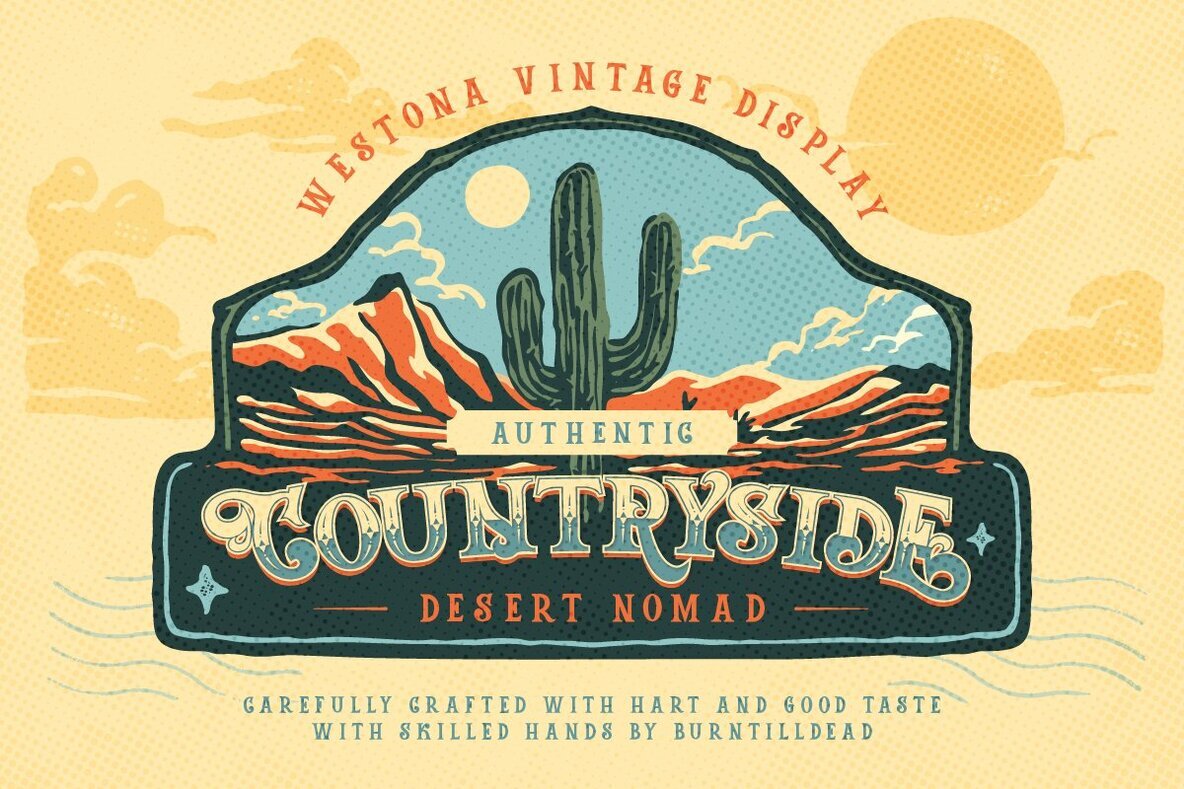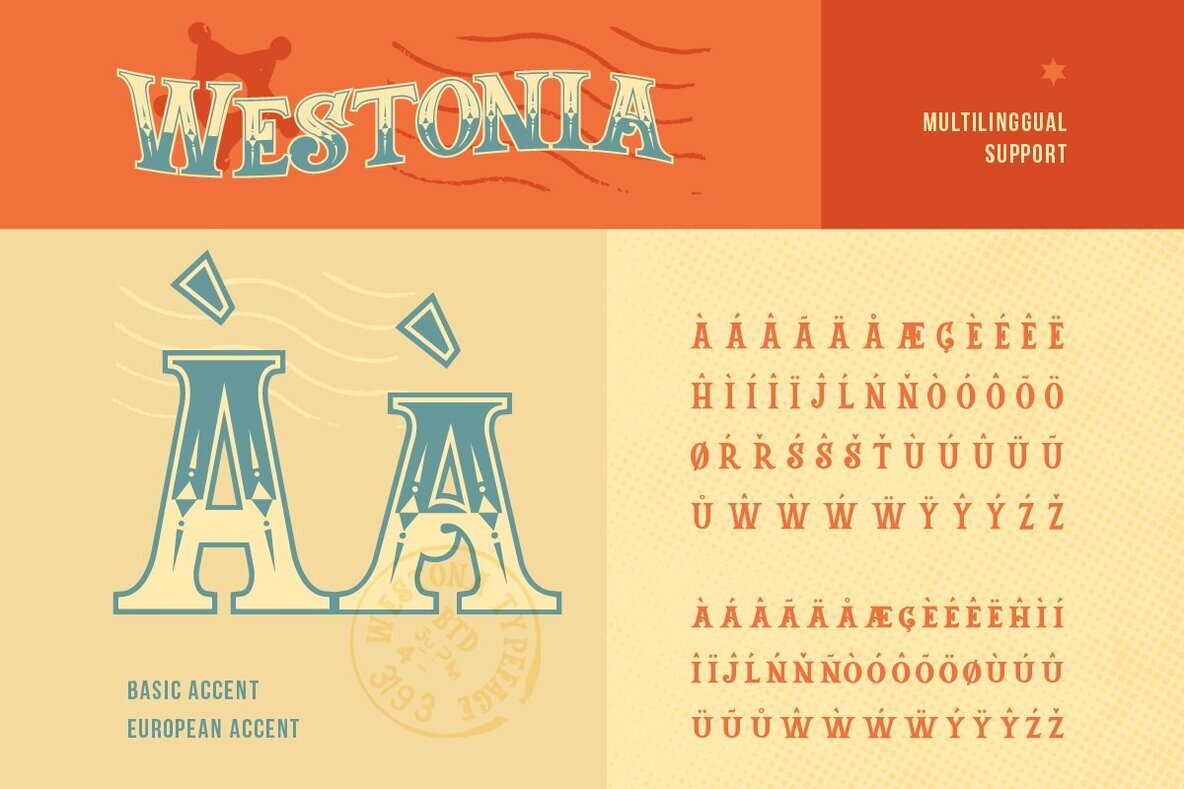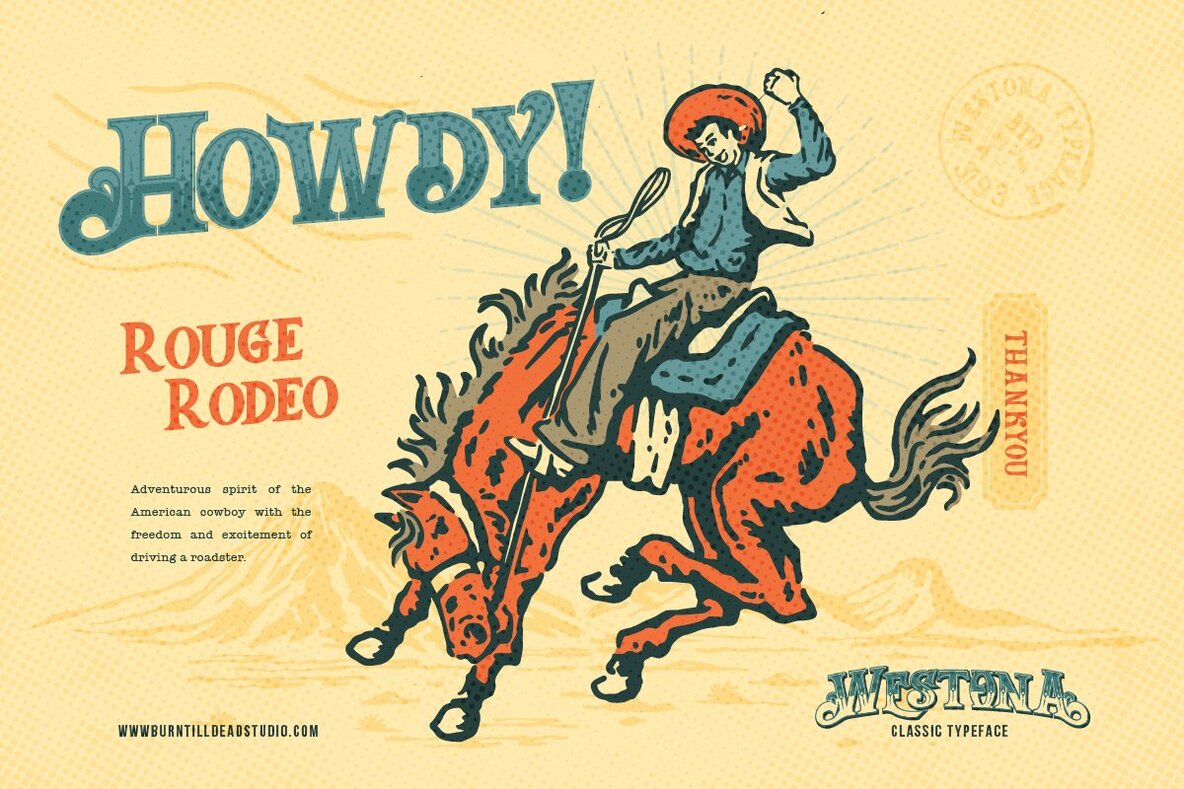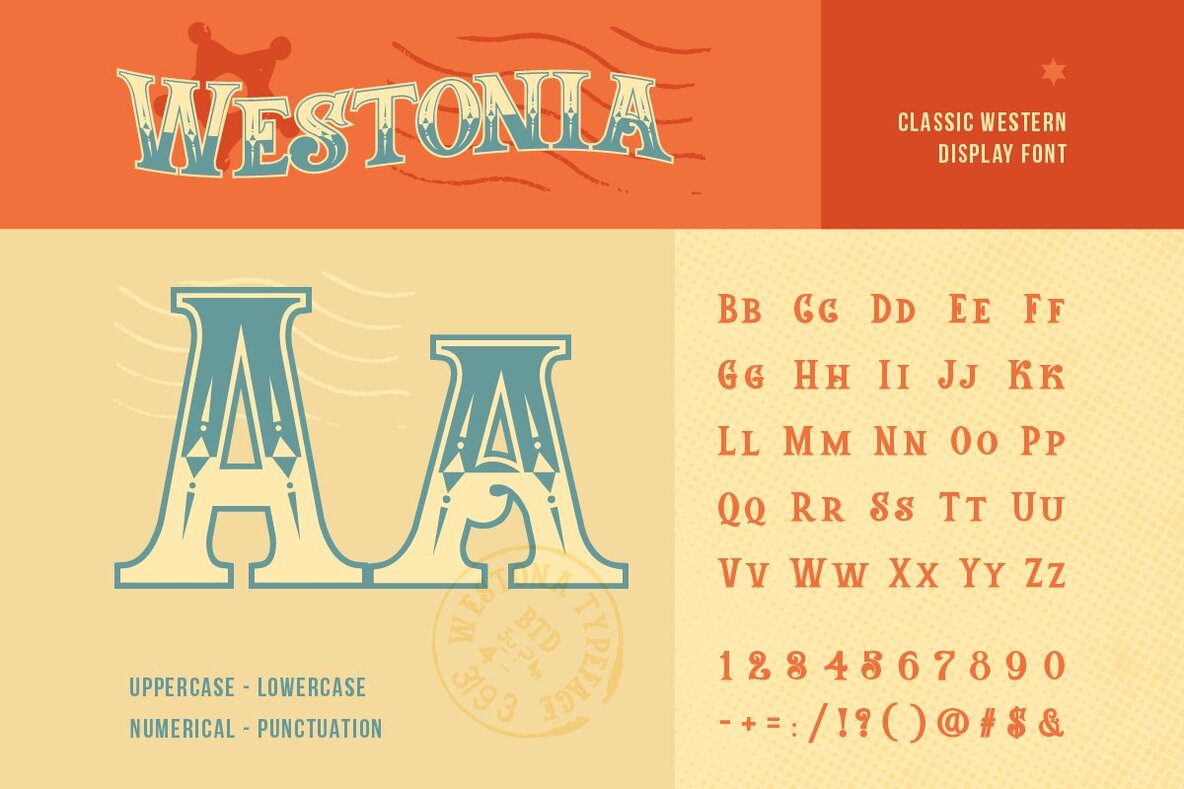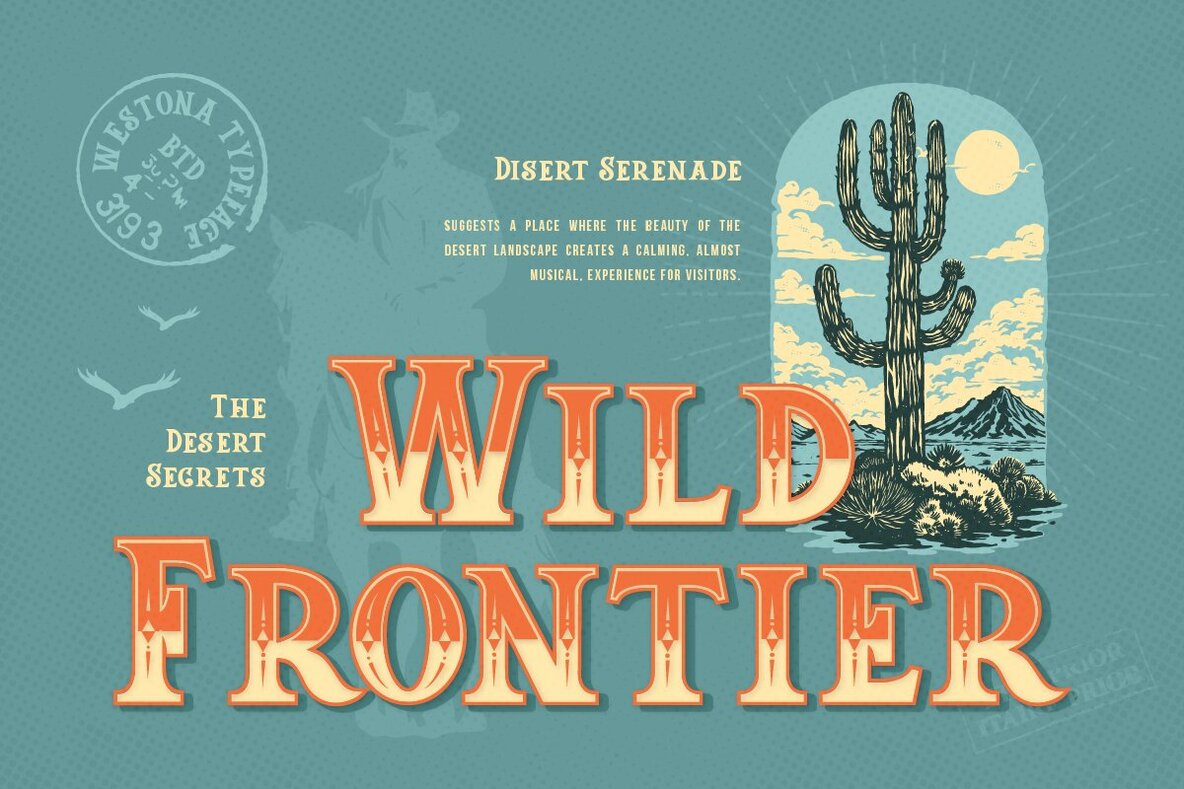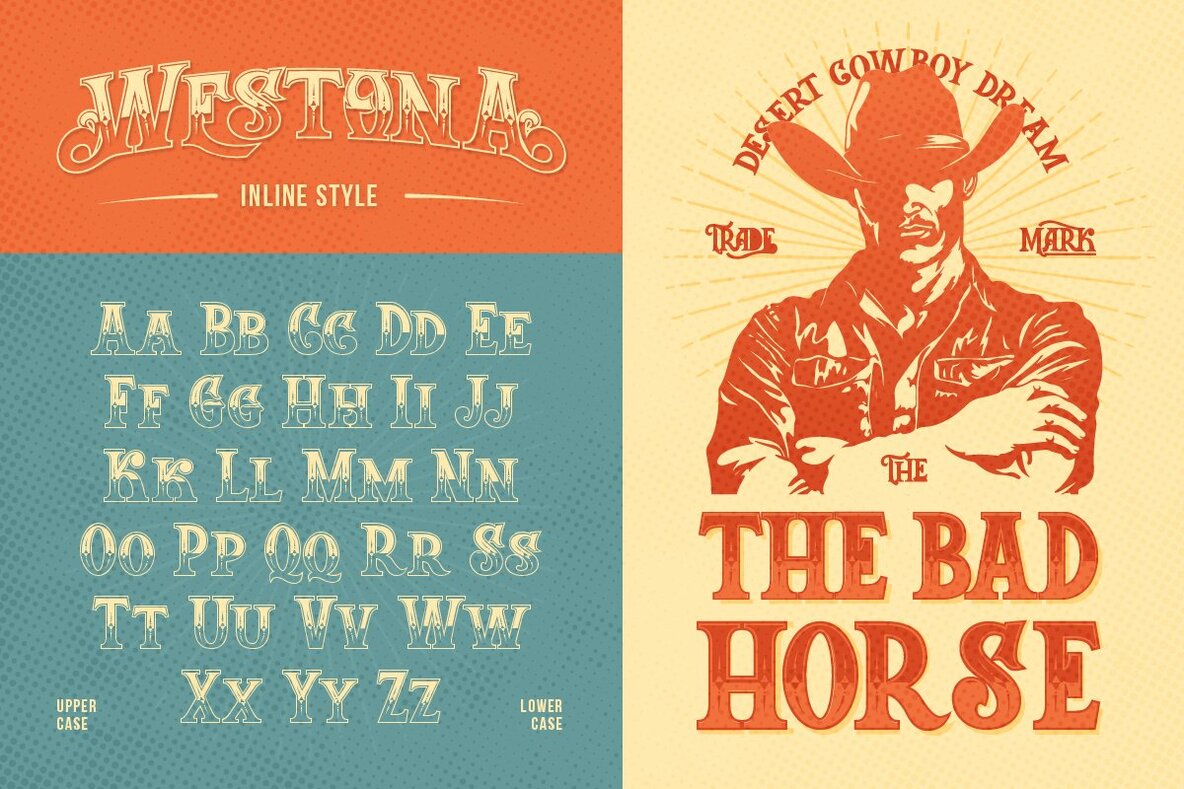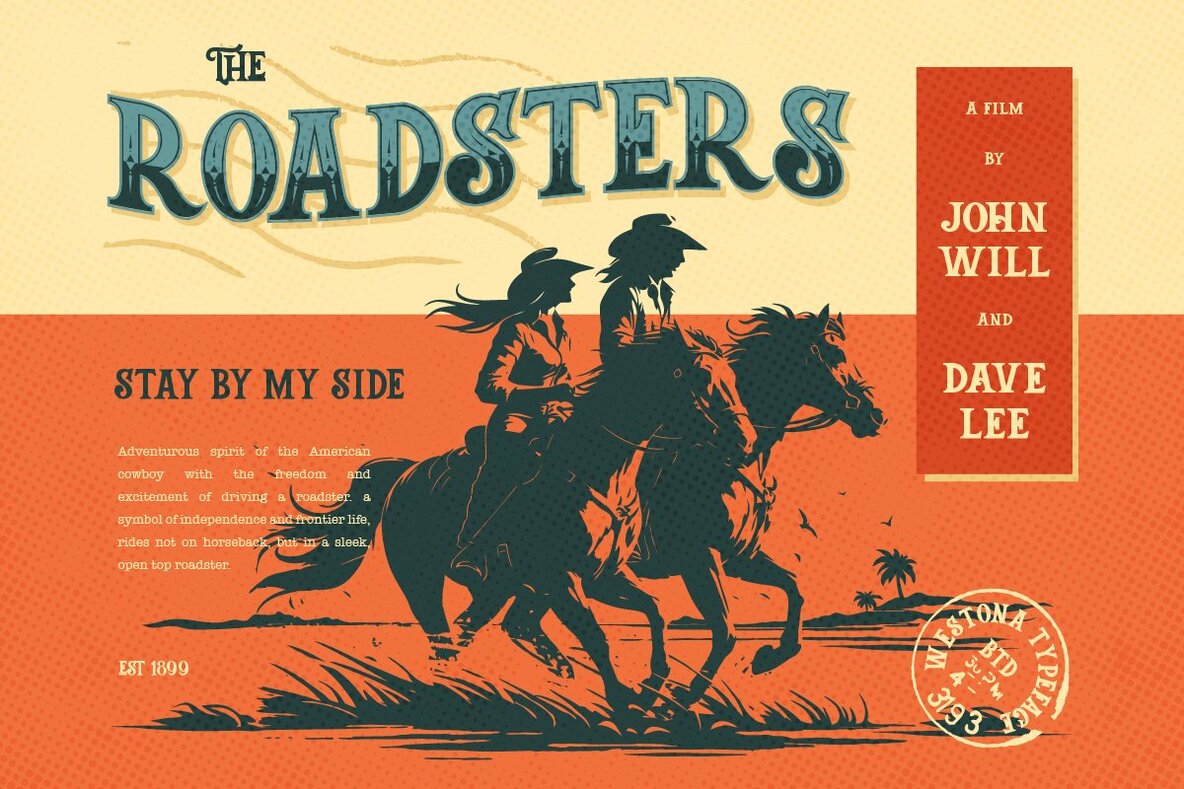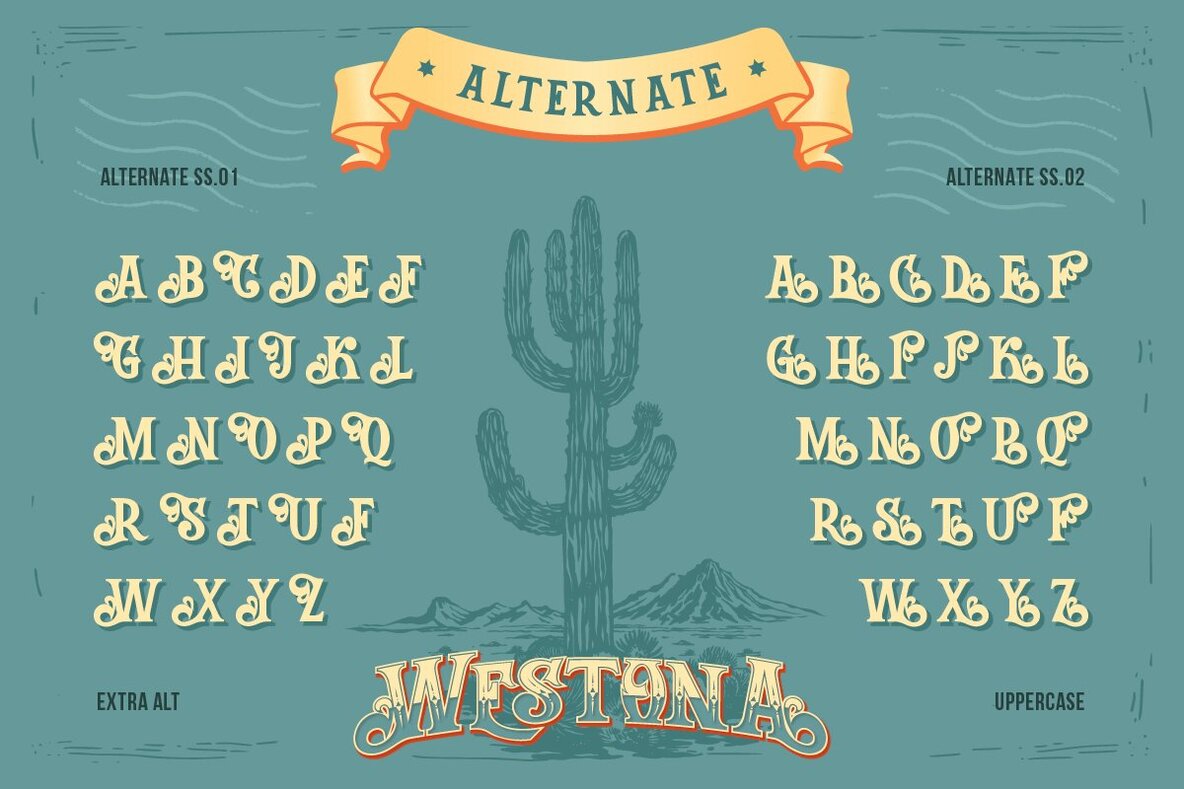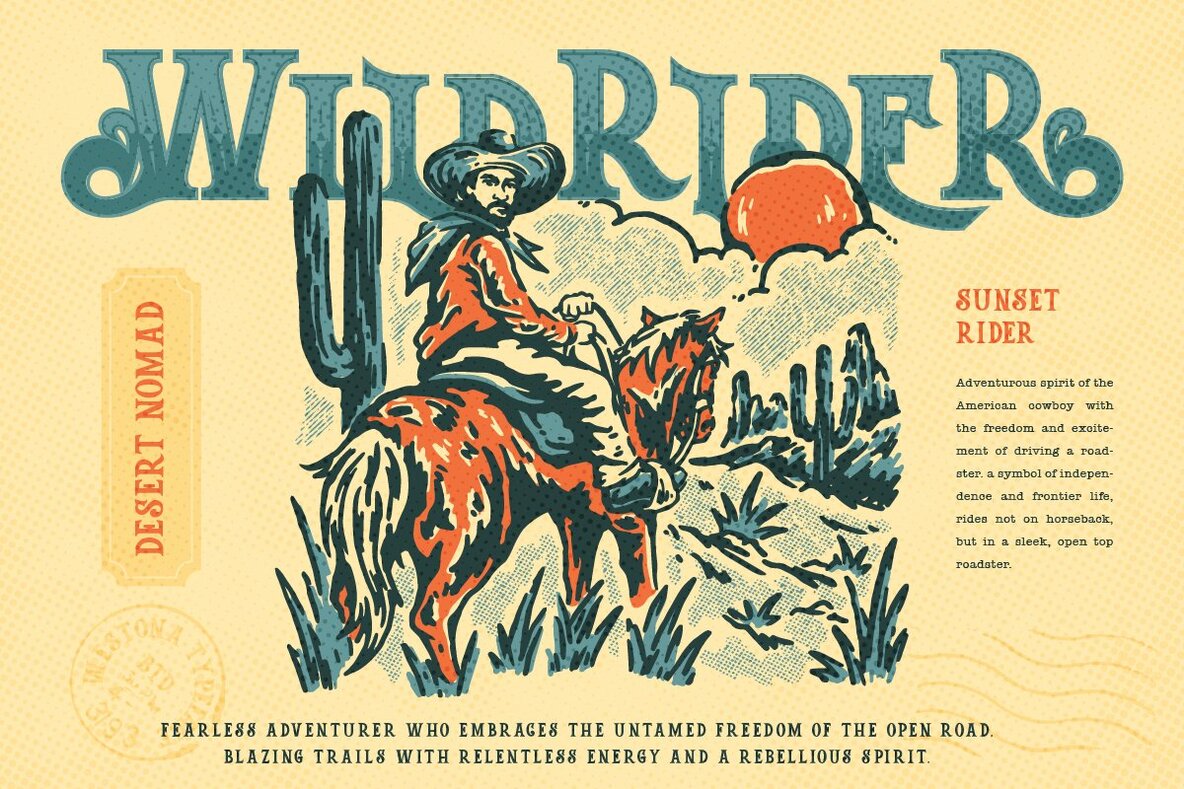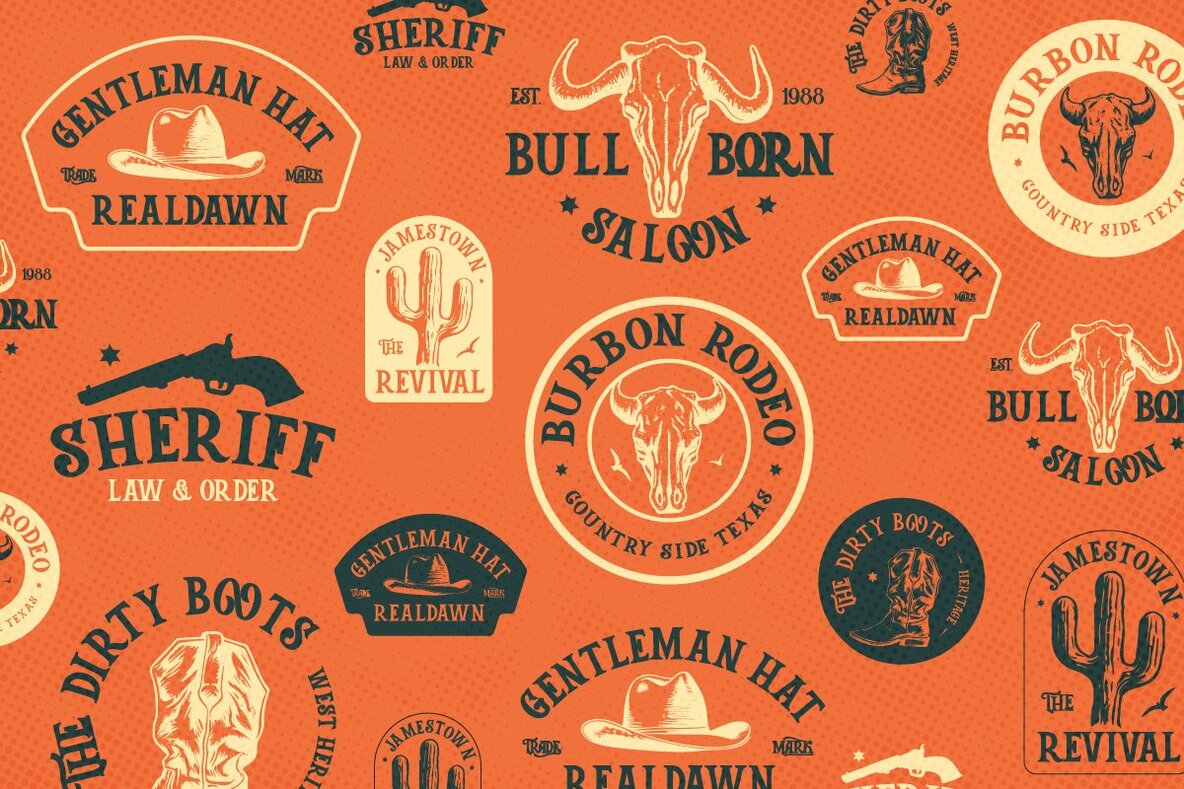
Westona Font
Westona Regular
Westona Inline
Howdy! Let us introducing our new classic western typeface, Westona! This font captured the bold and adventurous spirit of the old west with details of vintage saloon signs and cowboy era. Westona is a display font with additional inline style and special characters. This font bring a sense of nostalgia and frontier charm, perfect for adding a touch of Wild West flair to your design. Whether you’re creating a logo, poster or any other graphic, this font will make your design back to the cowboys era, outlaws and endless horizon. Features: